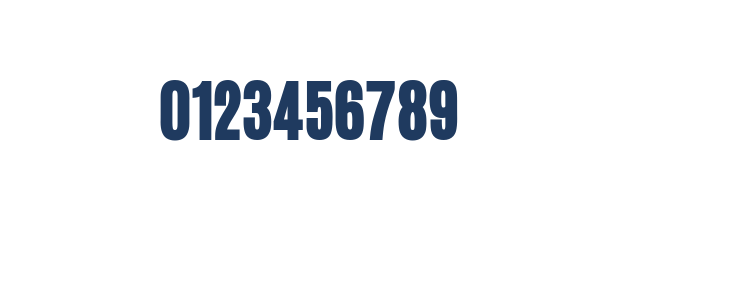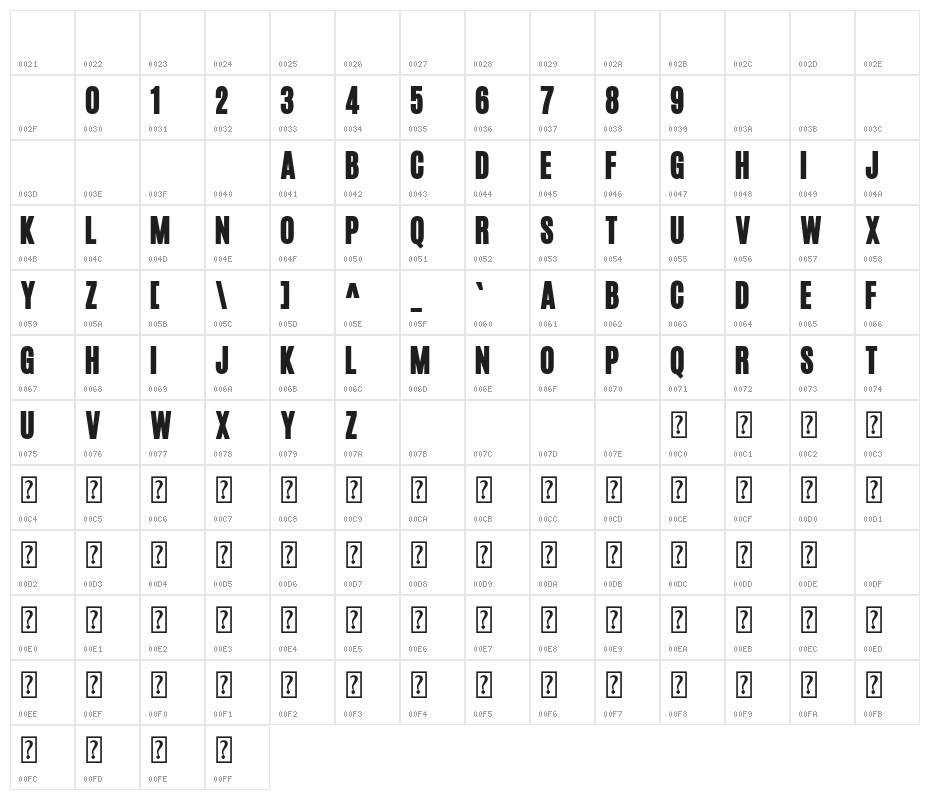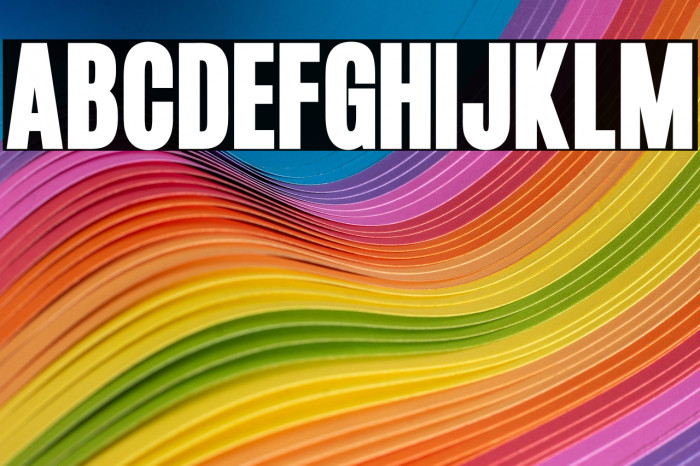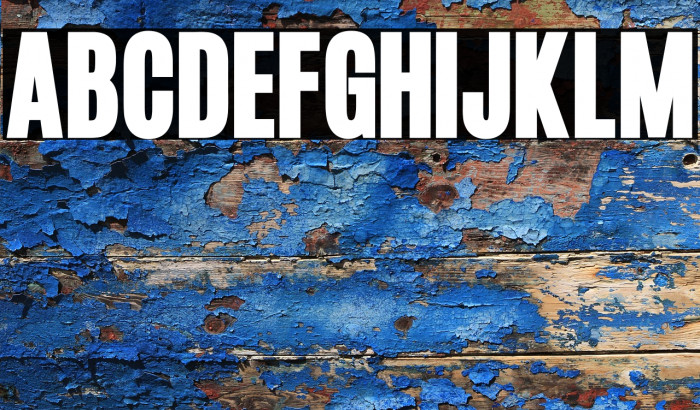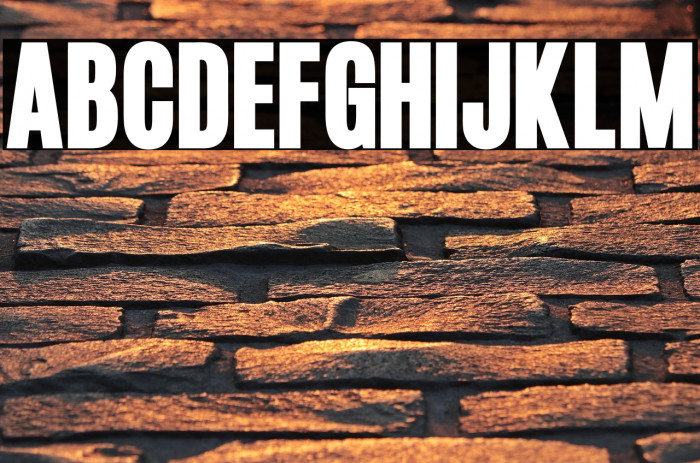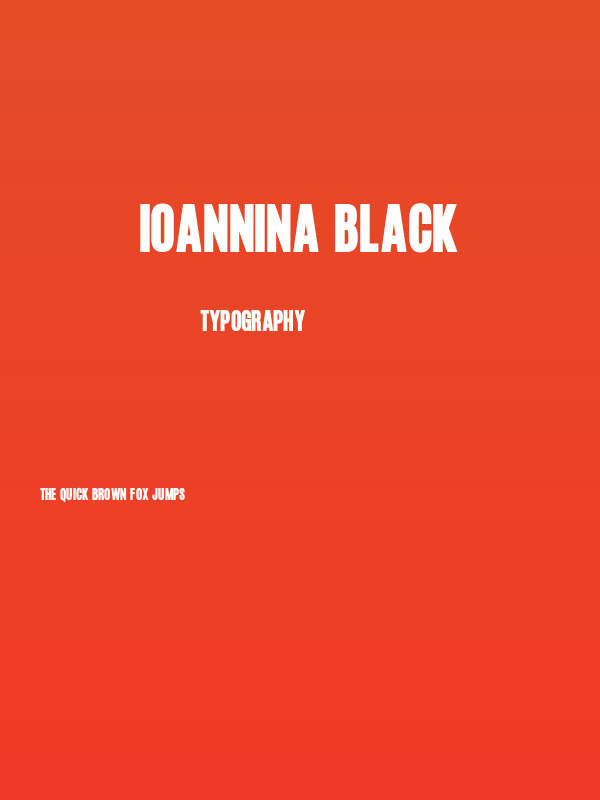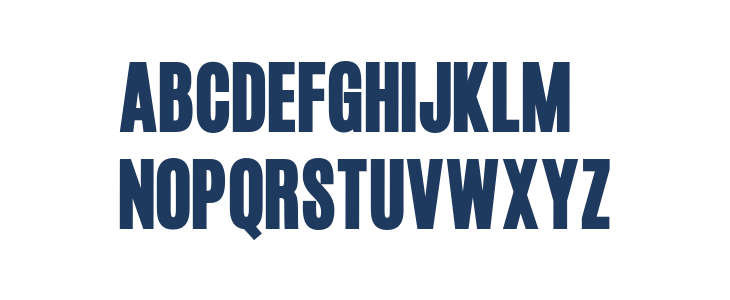
Ioannina Black Font
Ioannina Black Description
This font exhibits a bold and impactful style, characterized by thick, uniform strokes that convey strength and assertiveness. The uppercase letters are robust and commanding, making them ideal for attention-grabbing headlines. The numbers are equally bold, maintaining the font's overall consistency. The design is straightforward, with minimal embellishments, focusing on clarity and readability. The font's weight and width contribute to its powerful presence, making it suitable for projects that require a strong visual impact. Its simplicity and boldness make it versatile for various design applications.
| Proposed Projects | Perfect for posters, banners, headlines, and branding materials that require a bold and assertive look. |